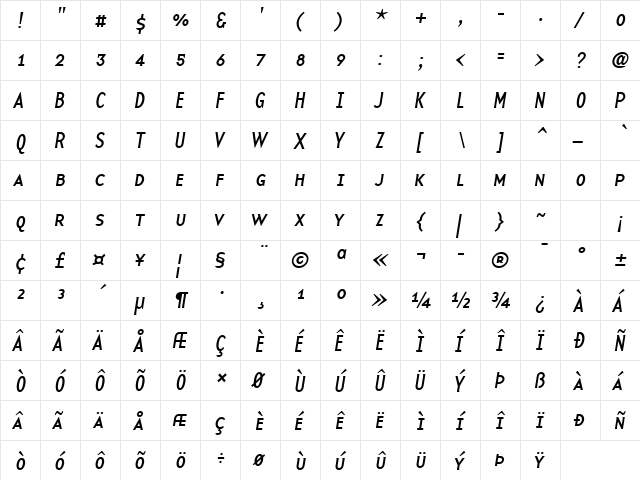
BaseTwelveSansSCI Regular
Design Context for BaseTwelveSansSCI Typeface
BaseTwelveSansSCI takes a measured approach to typography — its balanced proportions and neutral character make it a reliable workhorse for both digital and print work.